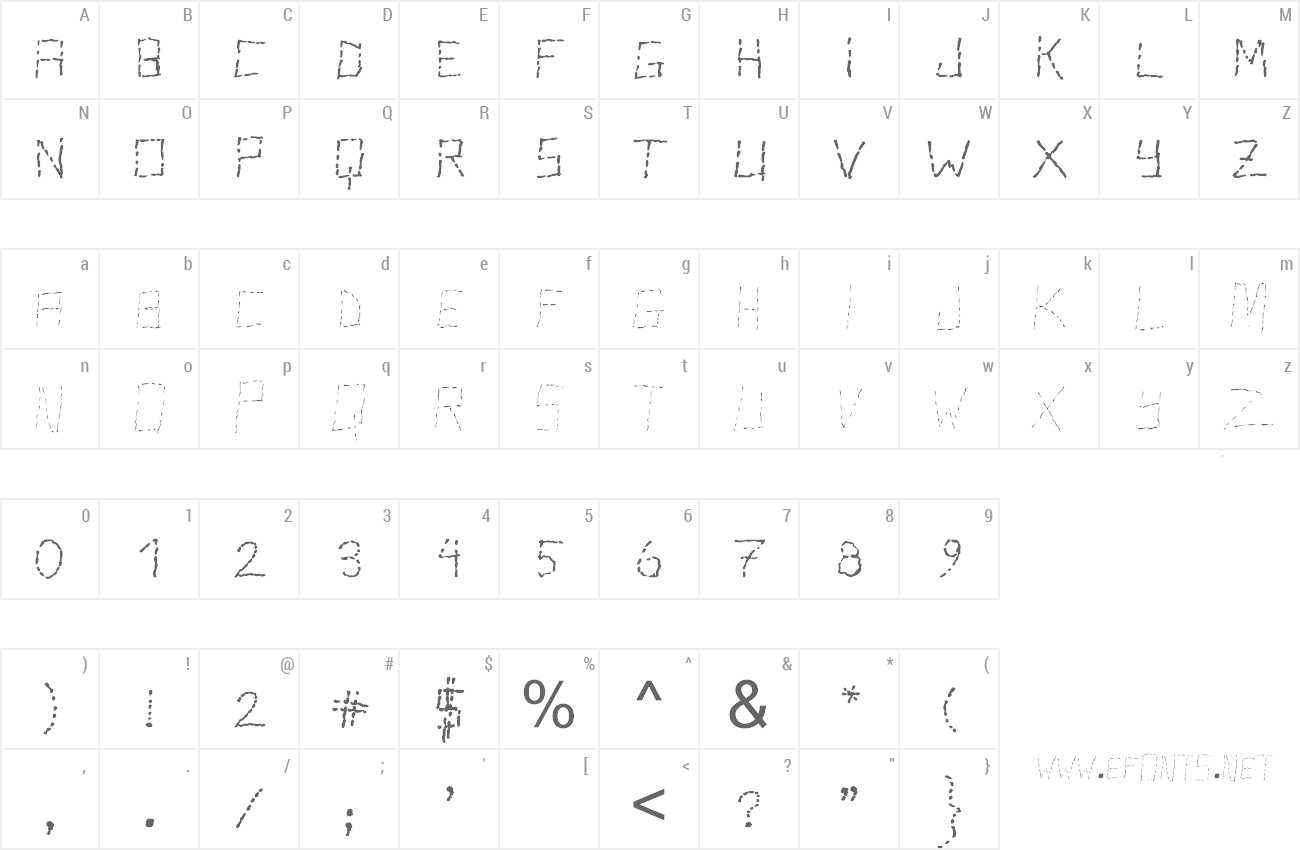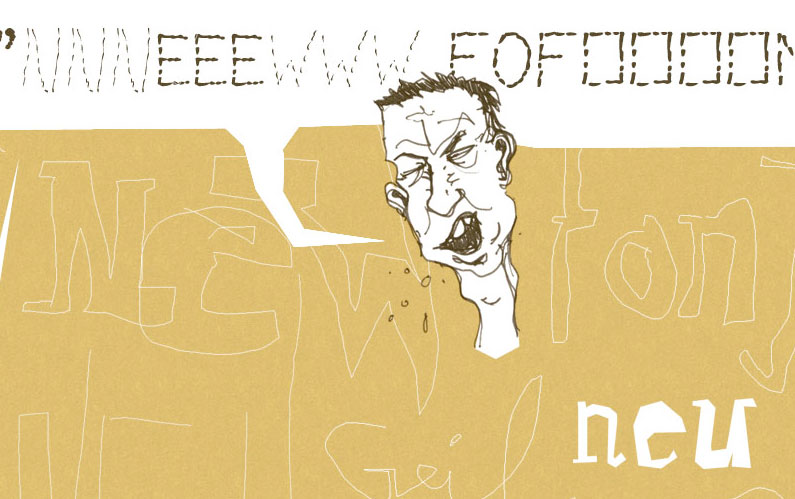
| Font name: | Stutter |
| Author: | Polenimschaufenster |
| Note by Polenimschaufenster | |
| Trashy dotted scribble-font. Use uppercase letters for normal weight, lowercase letters for the light version. |